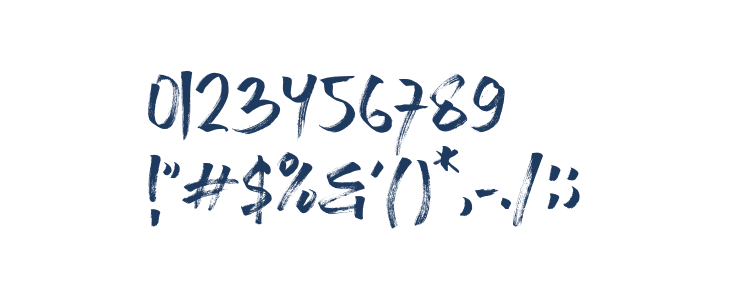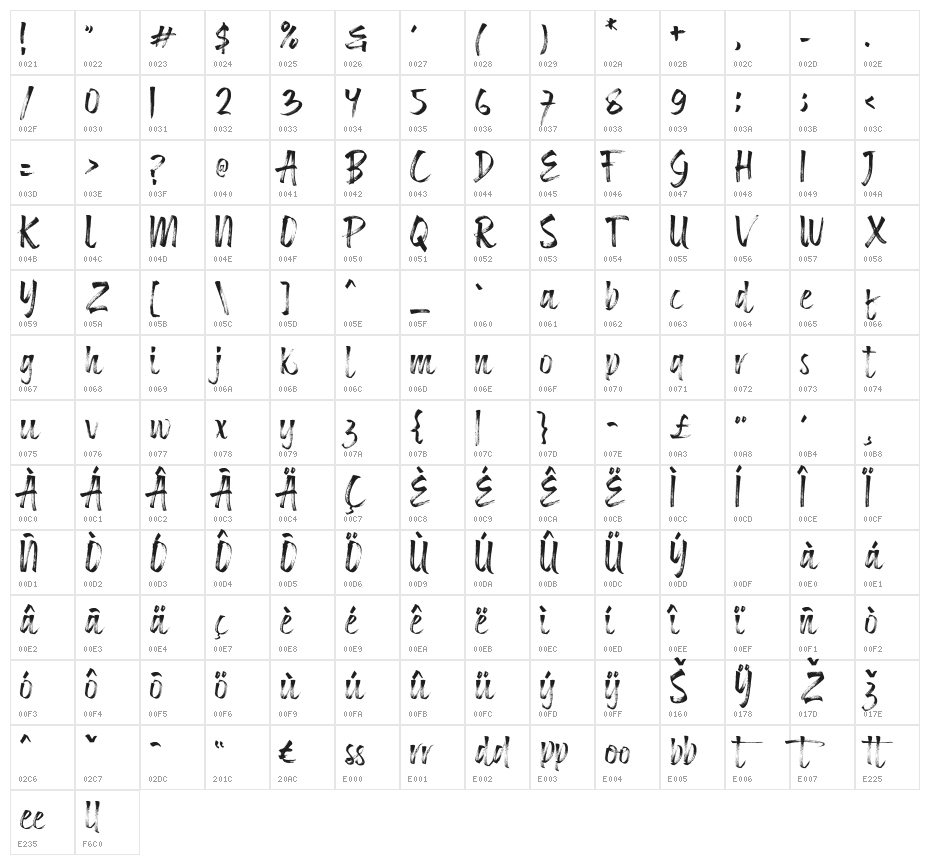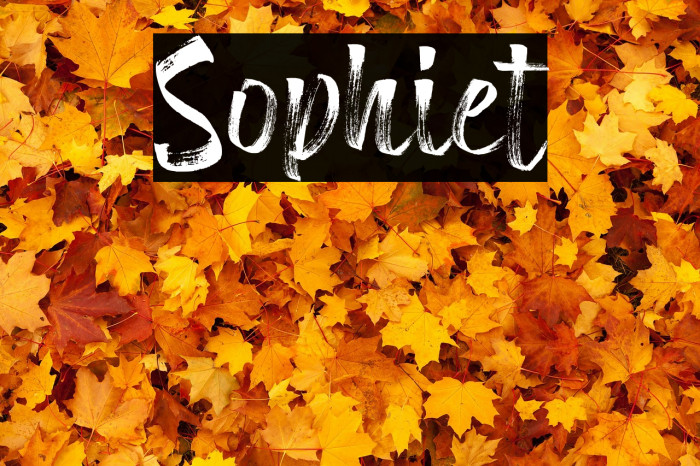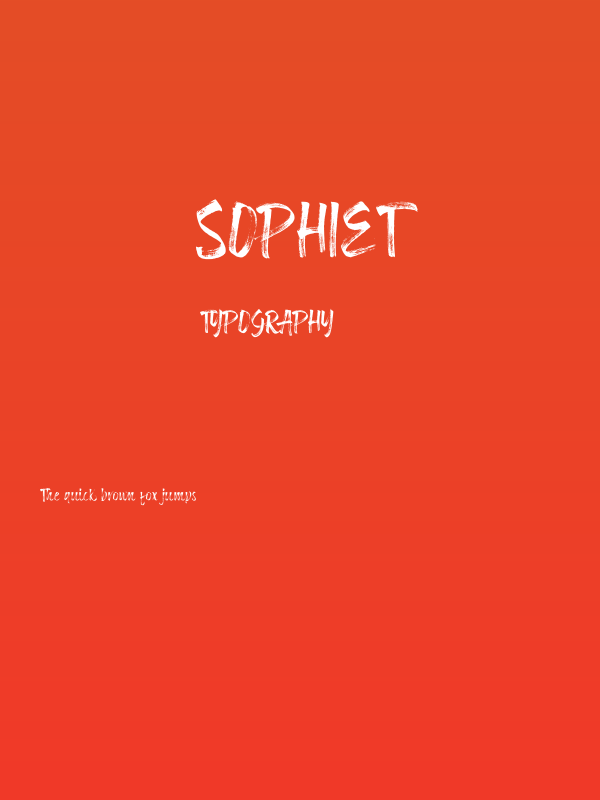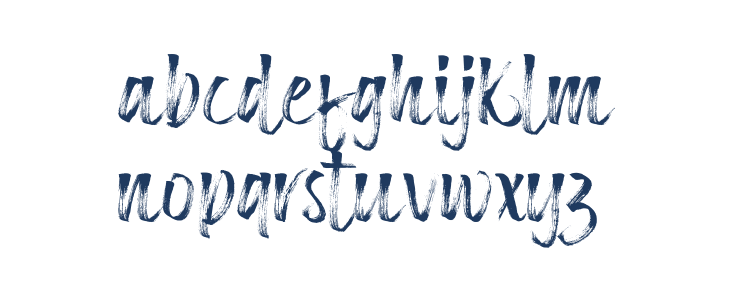
Sophiet Font
Sophiet Description
This font exudes a dynamic and expressive style, characterized by its bold, brush-like strokes that convey a sense of movement and energy. The letters are crafted with a hand-painted appearance, giving each character a unique and artistic flair. The uppercase and lowercase letters maintain a consistent style, with varying stroke widths that add depth and texture. The numerals and special characters follow the same aesthetic, ensuring a cohesive look across all elements. This font is perfect for projects that require a personal touch, such as invitations, posters, or branding materials.
| Use Case | Headlines, Logos, Artistic designs |
| Proposed Projects | Ideal for creative projects like invitations, posters, branding, and artistic designs. |